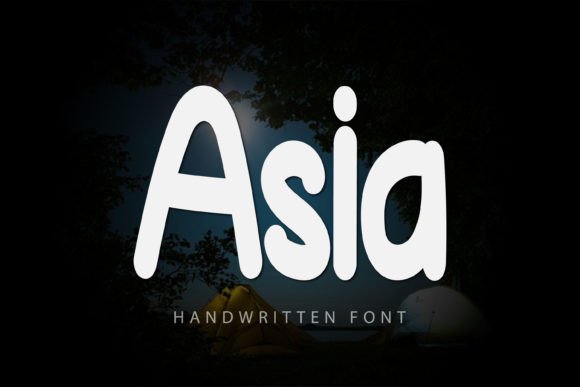
The Ultimate Guide to Asia Font: Adding a Touch of Whimsy to Your Designs
Have you ever been in the middle of a design project, and suddenly, you’re stuck on finding the perfect font? I recall a recent experience where I was working on a crafty project for a client who wanted a fun and quirky vibe. After scouring through numerous font options, I stumbled upon Asia Font, and it instantly became the star of the show! In this article, we’ll dive into the world of Asia Font, exploring its features, uses, and some helpful tips for incorporating it into your designs.
A Personal Review: What I Love About Asia Font
Asia Font has quickly become one of my go-to fonts for creative projects. Here’s what I love about it:
- ✨ Unique and quirky personality: Asia Font has a distinct handwritten feel that adds a touch of whimsy to any design.
- ✅ Highly versatile: This font can be used for a wide range of projects, from crafty and DIY to more polished and professional designs.
- 💫 Easy to read: Despite its playful nature, Asia Font remains clear and legible, even at smaller font sizes.
While Asia Font is an excellent choice for many projects, there are a few things to keep in mind:
- 🤔 Limited suitability for formal projects: Due to its playful nature, Asia Font might not be the best fit for more formal or corporate designs.
- ⚠️ Some characters may require manual adjustment: As with any font, you might need to tweak certain characters to achieve optimal spacing and alignment.
Asia Font was designed with the intention of creating a unique, handwritten display font that could add a touch of personality to any design. The designer aimed to create a font that was both fun and legible, making it perfect for a wide range of creative projects.
| Font Name | Asia Font |
| Author | MistyDesigns |
| What type of projects is Asia Font best suited for? | Asia Font is ideal for crafty, DIY, and creative projects, such as social media graphics, blog posts, and invitations. |
| Is Asia Font suitable for body text? | While Asia Font is legible, it’s primarily designed for display purposes. For body text, you may want to consider a more traditional font. |